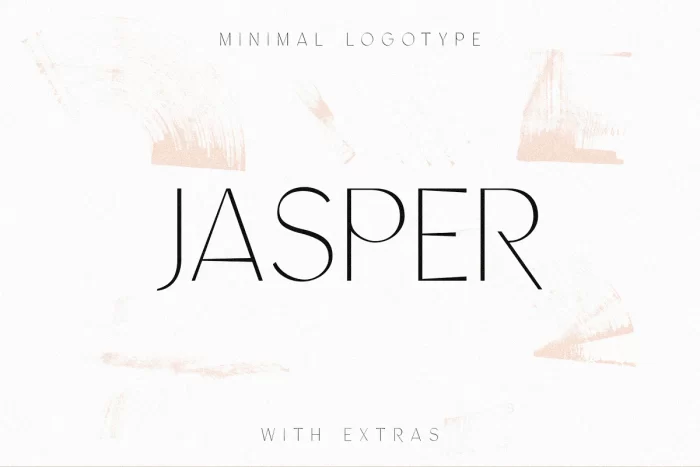
Jasper is a clean and modern sans serif font that is perfect for logos, headings, and other display text. It is characterized by its tapered lines and simple structure, which creates a visually appealing and easy-to-read design. It be used in any program on your computer that uses fonts! Just be sure to restart your programs after installation.
- Uppercase letters (including alternate letters for B and R)
- Numbers & extended punctuation
- Foreign language accents & characters for the international designer